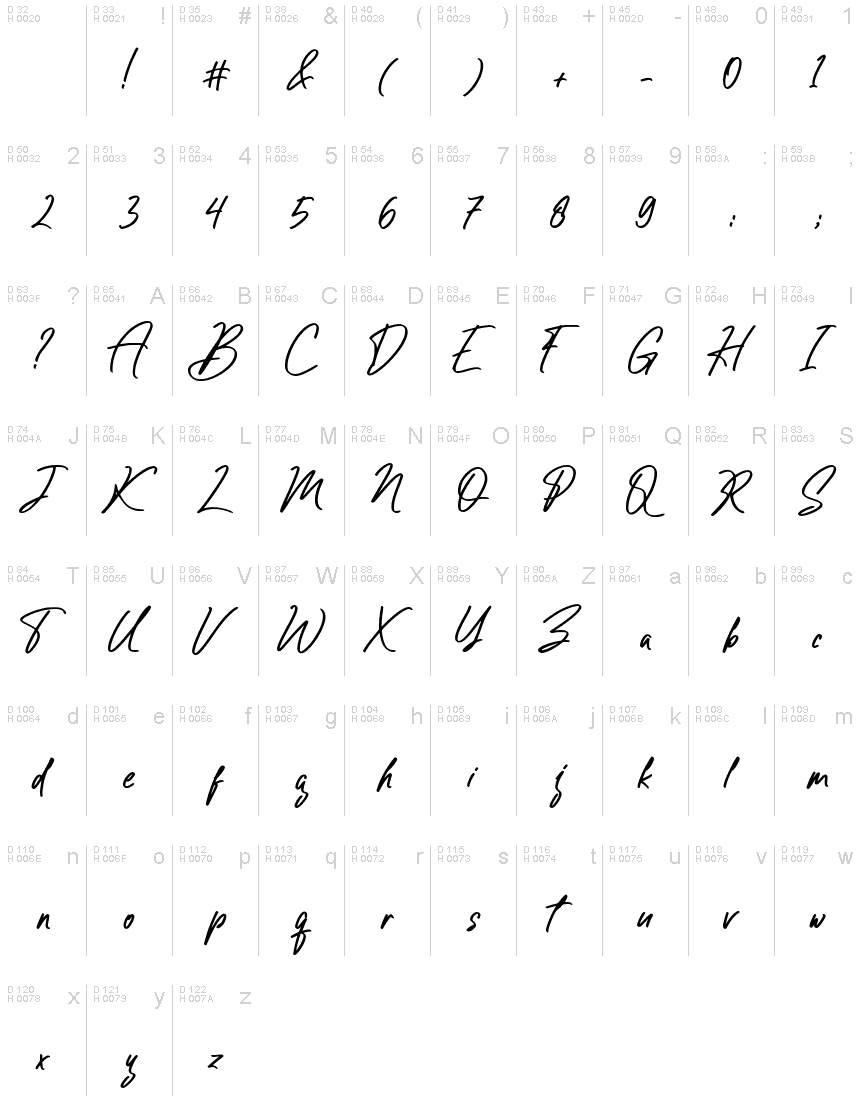
Introducing Sophiaticha, a light, narrow handwritten signature font designed by Rian Rahardi. With its elegant and graceful style, this font is perfect for adding an extra touch to wedding invitations, signature logos, and stylish monogram projects.
Sophiaticha Regular